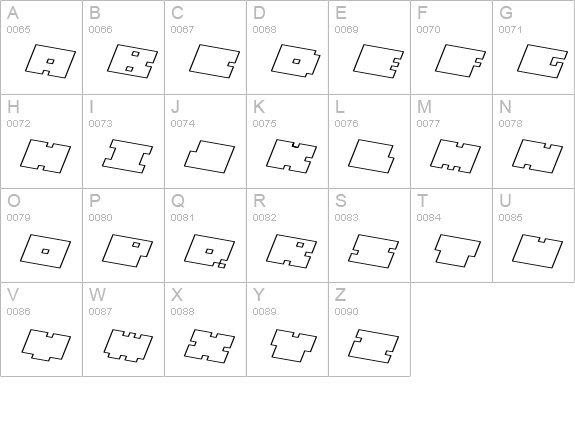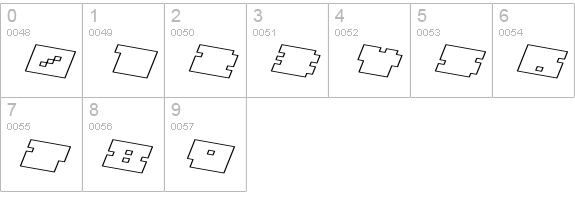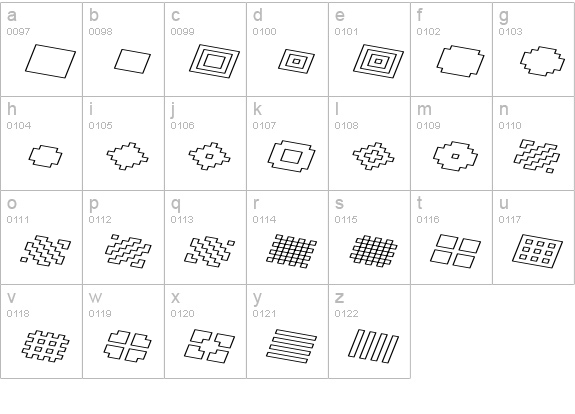
QUBE HOLLOW WIDE ITALIC is a distinctive, extended-width, italic variant in the QUBE typeface family \xE2\x80\x94 well suited to design and typography projects.
QUBE HOLLOW WIDE ITALIC is a dynamic and eye-catching font that will surely make your designs stand out. With its unique and bold letterforms, this font exudes a sense of modernity and elegance. The hollowed-out look adds a touch of creativity and adds depth to your projects. This font is perfect for a variety of design purposes, including logos, headlines, branding materials, posters, and more. Its wide and italicized style adds an extra level of sophistication and uniqueness to any design. Whether you're working on a sleek and contemporary project or aiming for a more edgy and futuristic look, QUBE HOLLOW WIDE ITALIC will be the perfect choice. And the best part? QUBE HOLLOW WIDE ITALIC is freely available to download at FontsMarket.com. You can easily access this font and add it to your collection without any hassle. FontsMarket.com offers a wide range of high-quality and unique fonts, and QUBE HOLLOW WIDE ITALIC is no exception. So, why wait? Download QUBE HOLLOW WIDE ITALIC today and unleash your creativity with this stunning font. Stand out from the crowd and create designs that leave a lasting impression. With QUBE HOLLOW WIDE ITALIC, the possibilities are endless.